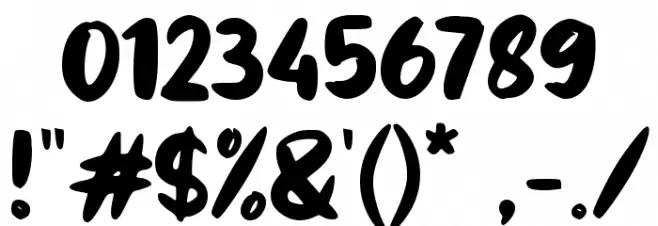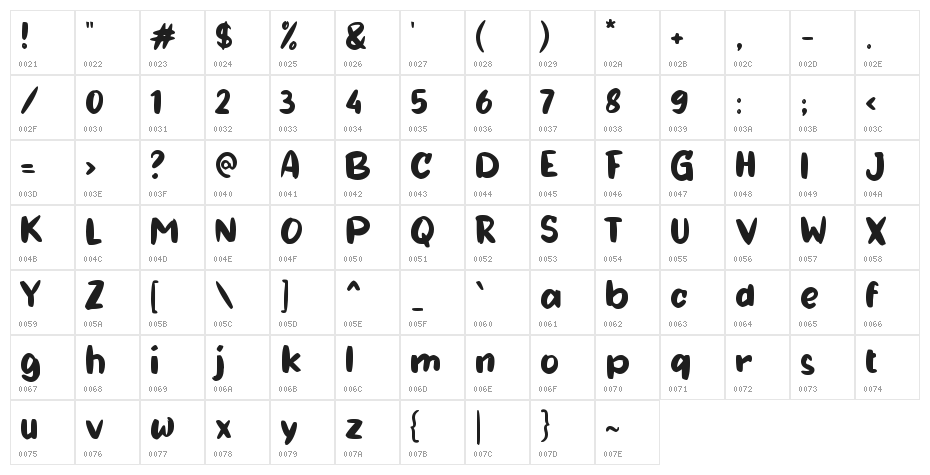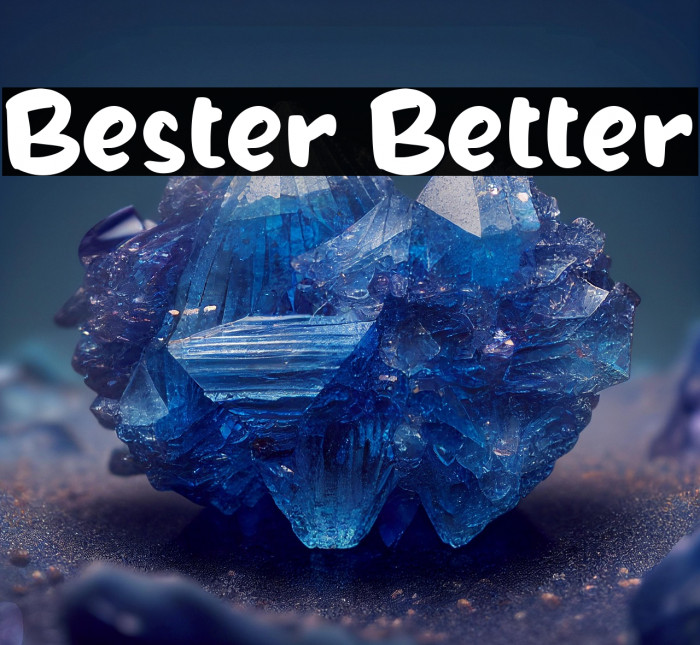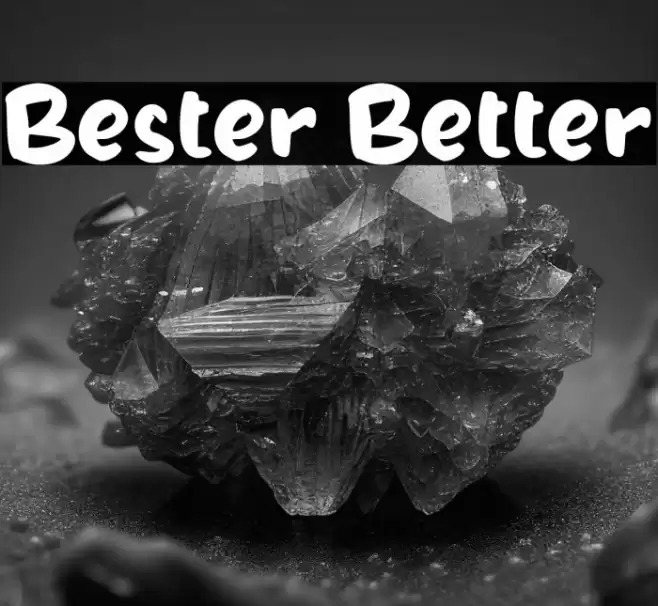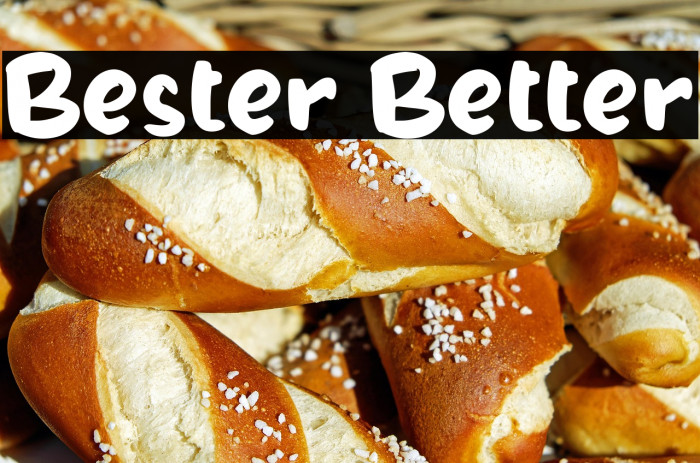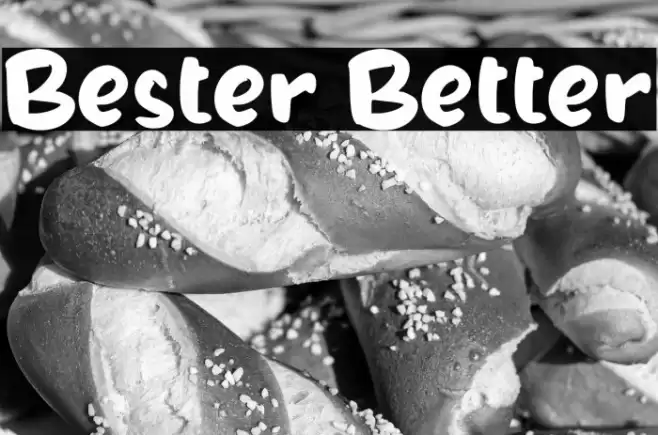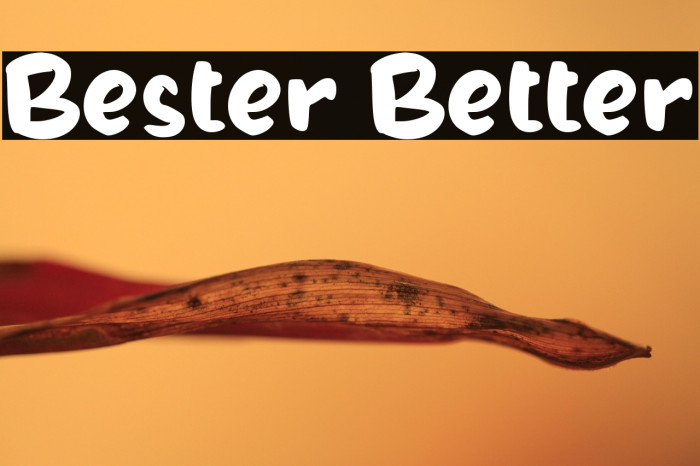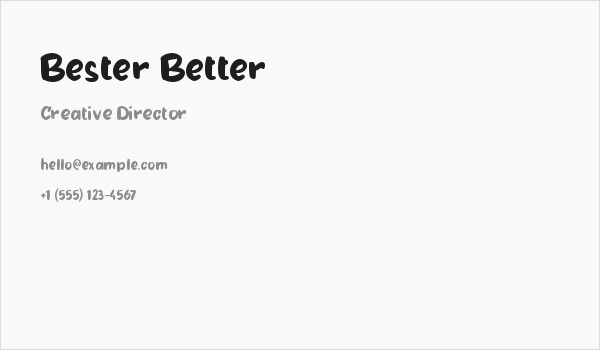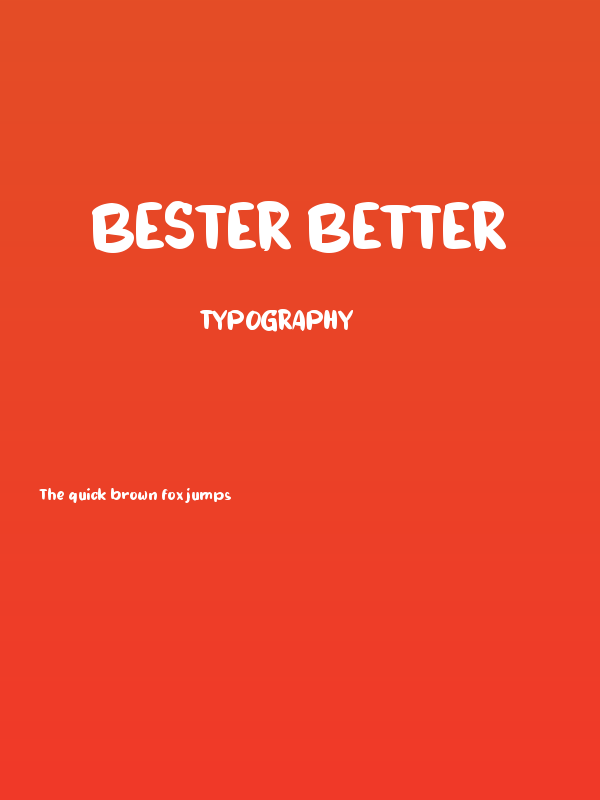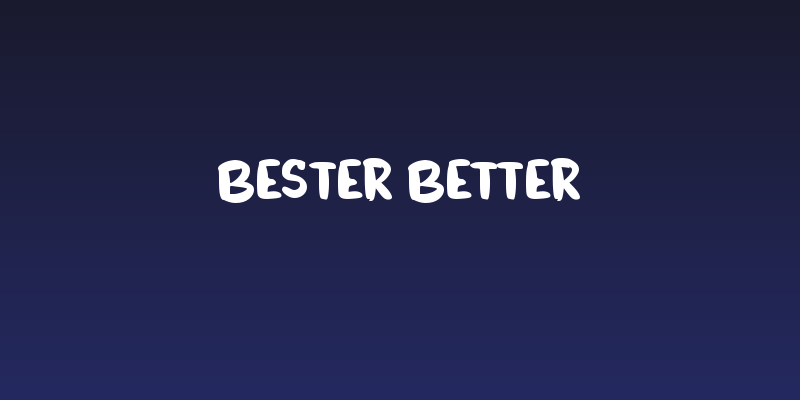
Bester Better Font
Bester Better Description
This font features a playful and bold handwritten style, characterized by its thick, rounded strokes and casual appearance. The letters are slightly irregular, giving it a lively and informal feel. The uppercase and lowercase letters are well-balanced, maintaining a consistent flow throughout. The numerals and special characters complement the alphabet with the same energetic style, making it versatile for various creative projects. Its boldness ensures high readability, while the unique character shapes add a touch of personality.
| Proposed Projects | Ideal for children's books, playful branding, greeting cards, and social media graphics. |